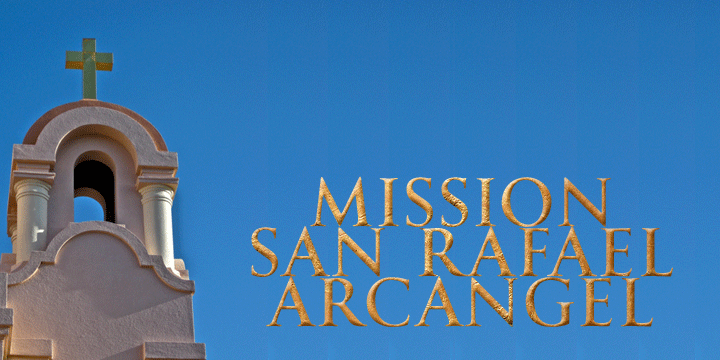
Not to be confused with Adobe’s Trajan typeface (which is very similar), this face is based on the drawings by F.W. Goudy of his rendition of the capital letters inscribed on the Trajan column in Rome. The numerals are based on his subsequent metal type, but as it lost a great deal of subtlety and beauty in translation, they have been rendered to match the style of the alphabet drawings. Includes uppercase letters with some alternates, numerals and basic punctuation.
Goudy Trajan Regular
Goudy Trajan Medium
Goudy Trajan Bold